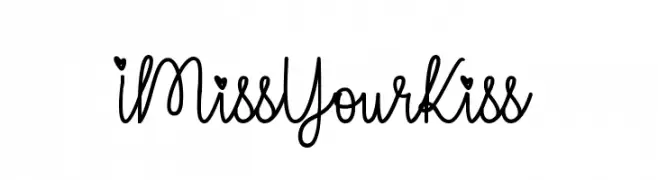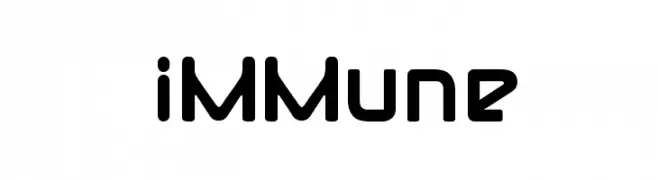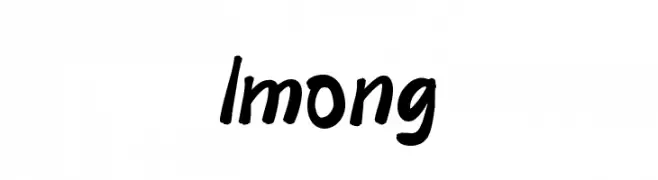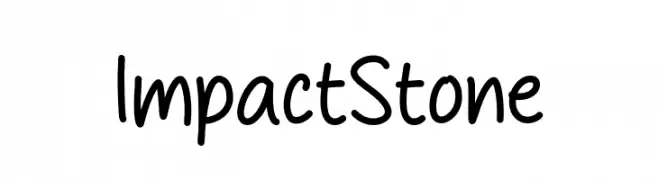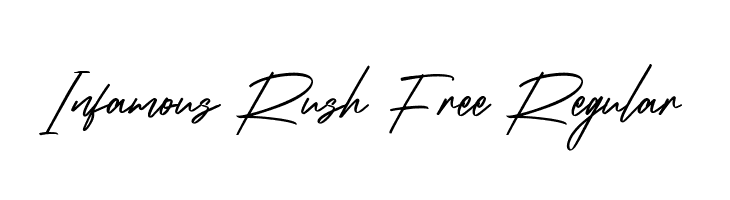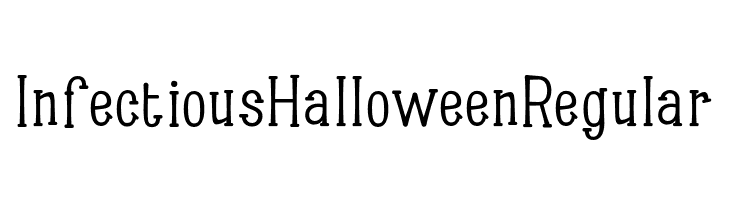
A playful, handwritten script font with charming, romantic details.
A bold, distressed font with a grunge, decayed texture and sharp descenders.
A bold, distressed font with sharp, pointed extensions and a grunge texture.
A bold, futuristic font with geometric shapes and sharp angles.
A bold, geometric font with a condensed and modern style.
A bold, handwritten font with a playful and energetic style.
A playful, casual handwritten font with smooth, rounded edges and consistent stroke width.